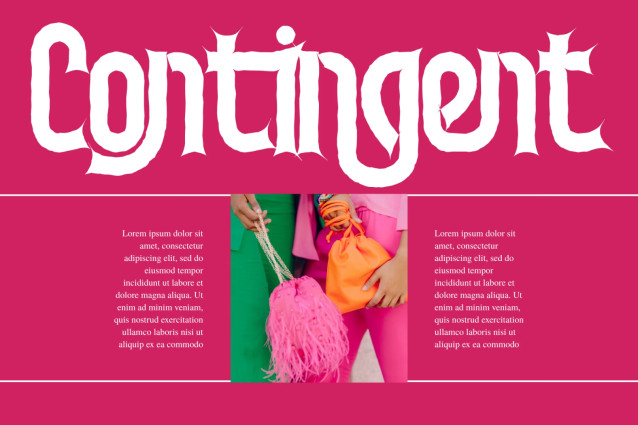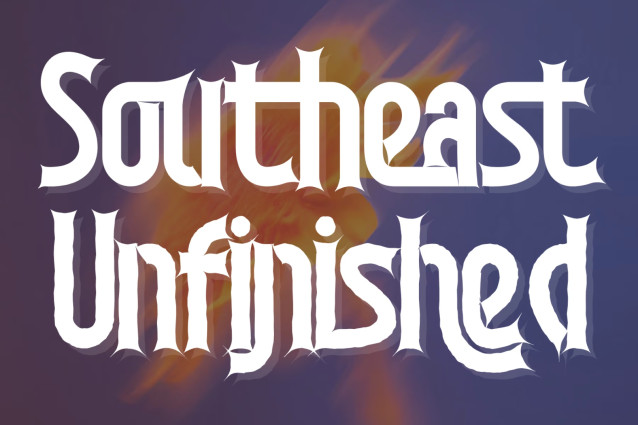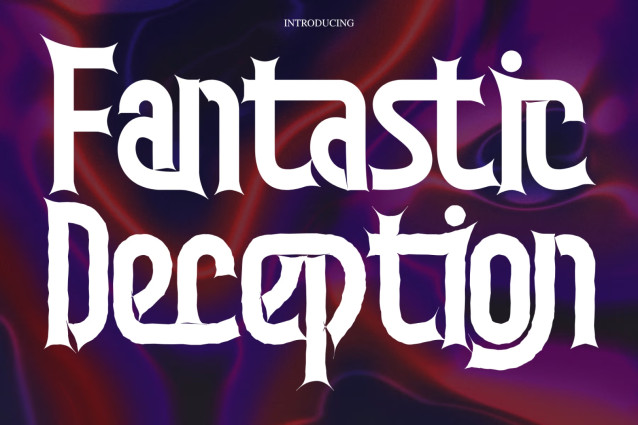
Fantastic Deception Font
Fantastic Deception Font – Modern Spiky Fantasy Gothic & Dark Display Font is an enchanting, dark fantasy display typeface crafted at the dramatic intersection of modern gothic geometry, sharp thorn-like spiky serifs, and psychedelic blackletter aesthetics. Characterized by its condensed vertical proportions, razor-sharp terminals, and intricate inner cutouts, this font channels a mysterious, high-impact presence for bold typographic statements.
Designed to turn display titles into captivating, custom logotypes, Fantastic Deception injects an edgy, ethereal dark fantasy vibe into your designs. Its unique combination of sweeping organic curves and fierce decorative spikes makes it the ultimate typographic choice for horror movie posters, dark fantasy book covers, Halloween graphics, gothic streetwear brands, rock/metal album covers, tarot packaging, and mystic gaming titles.